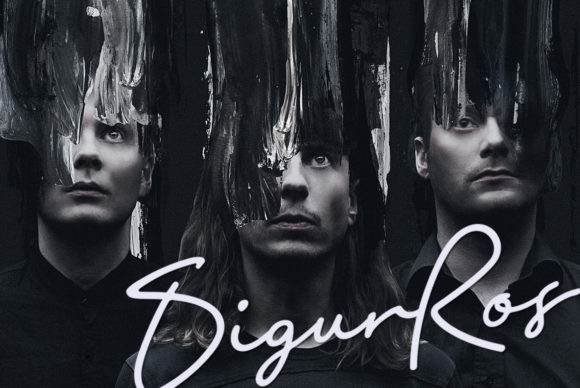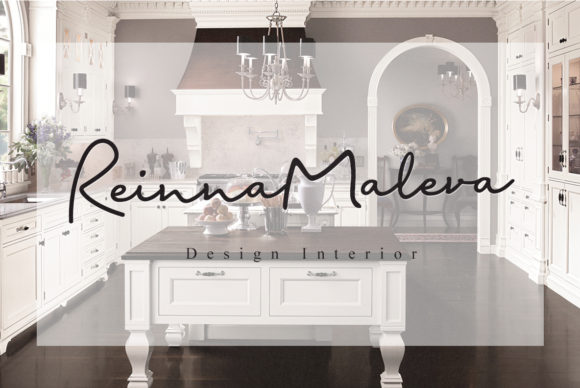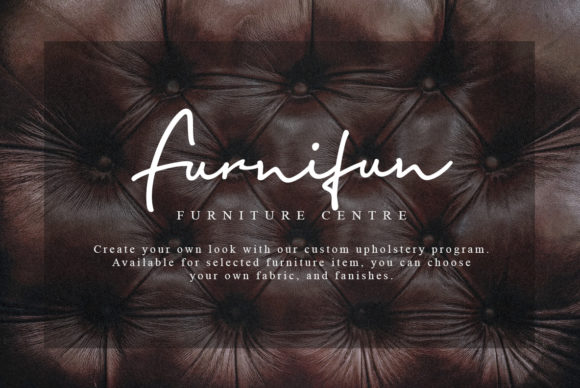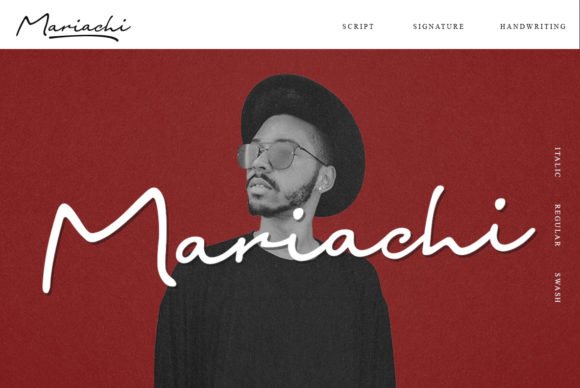
Introduction to Mariachi Script Font
The Mariachi is a smooth pen script with large display capitals and small but legible lowercase letters.
It’s ideal for a logo, branding, signature, poster, banner, website, wedding invitation, name card or any display use It’s great for typing headlines in a magazine – it’s stylish but legible enough due to its smooth shapes.
Mariachi Script Font offers exceptional quality and versatility, making it a valuable addition to your design toolkit. Whether you’re creating for personal projects or commercial use, Mariachi Script Font delivers professional results.